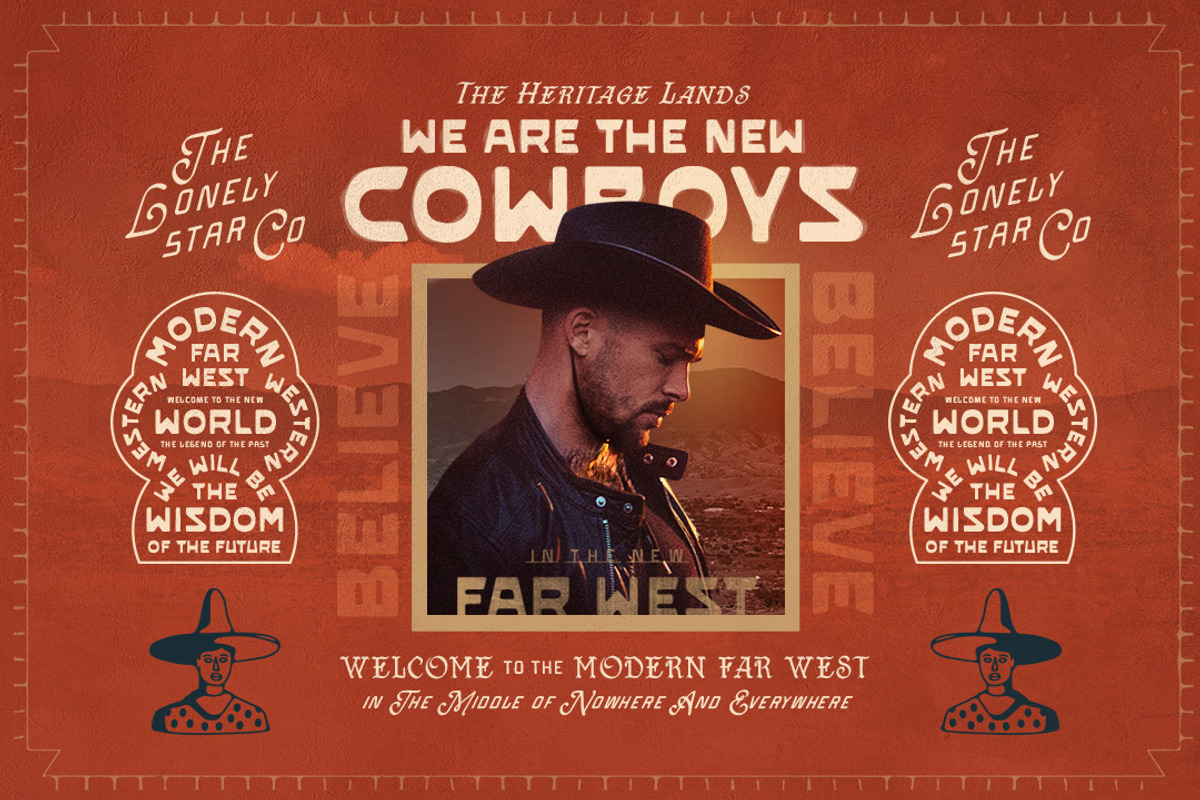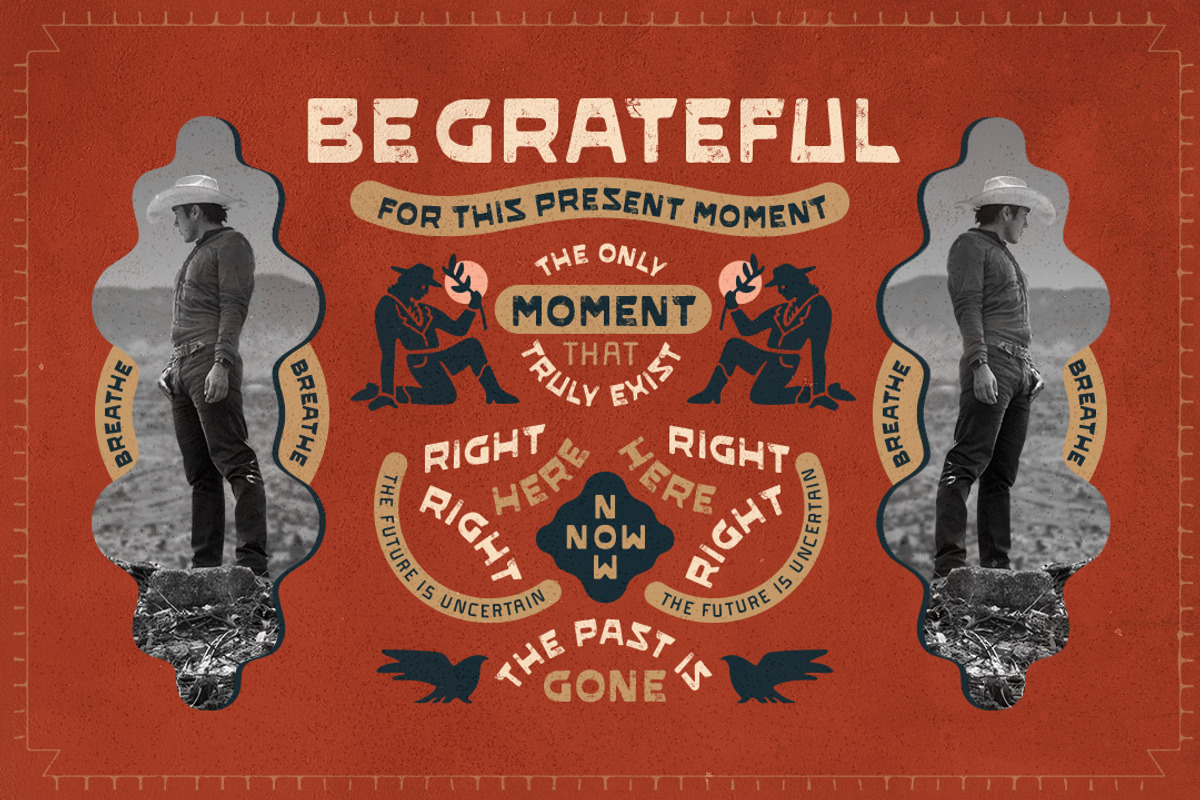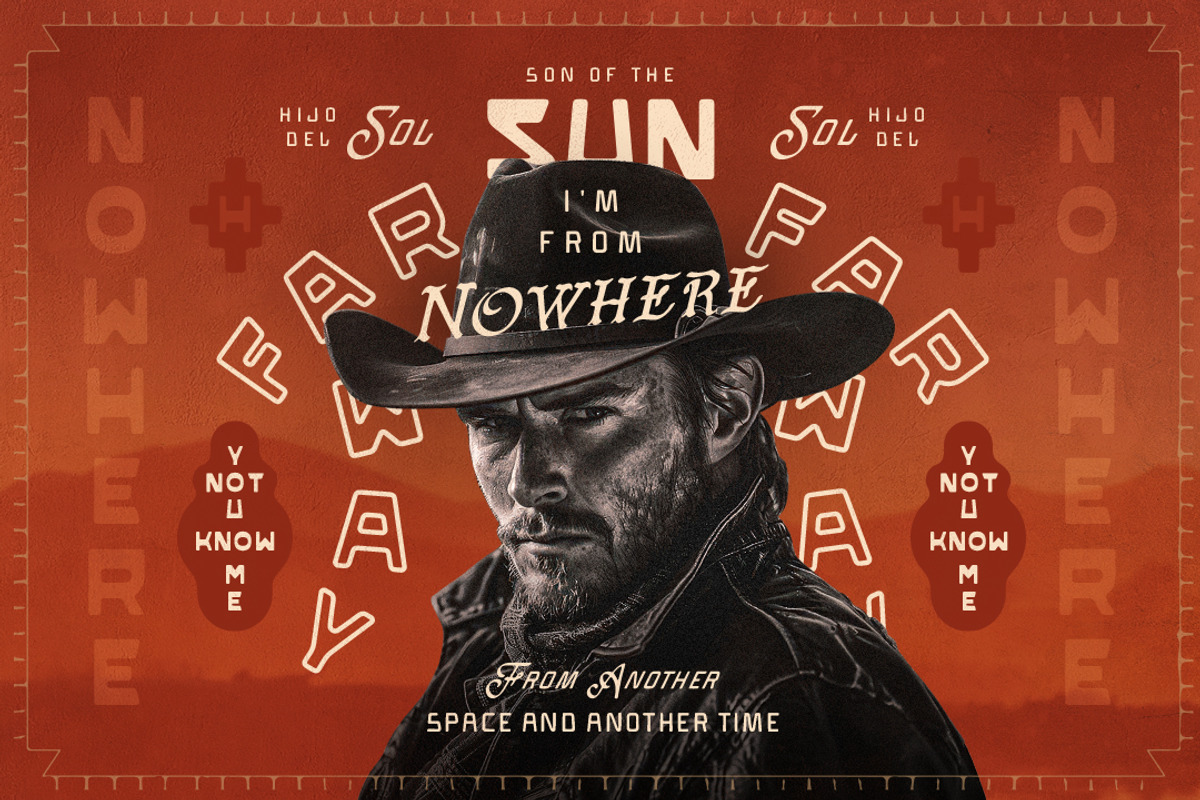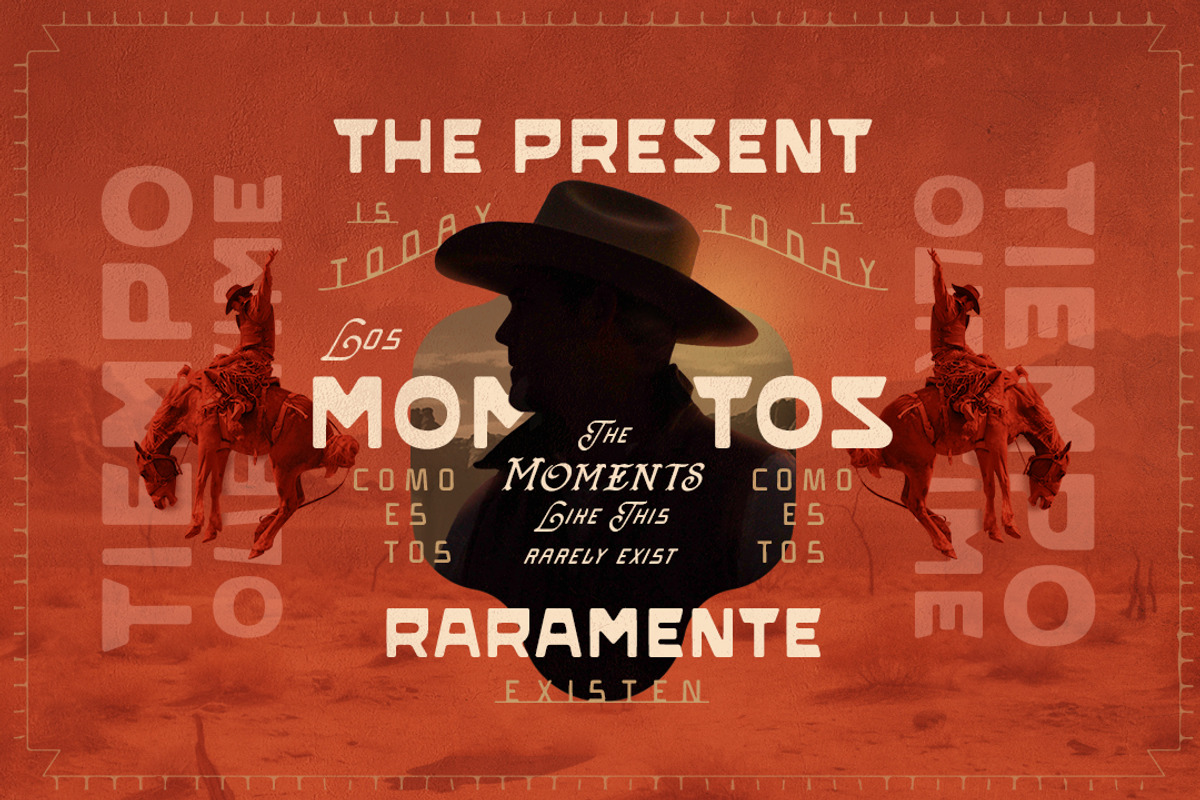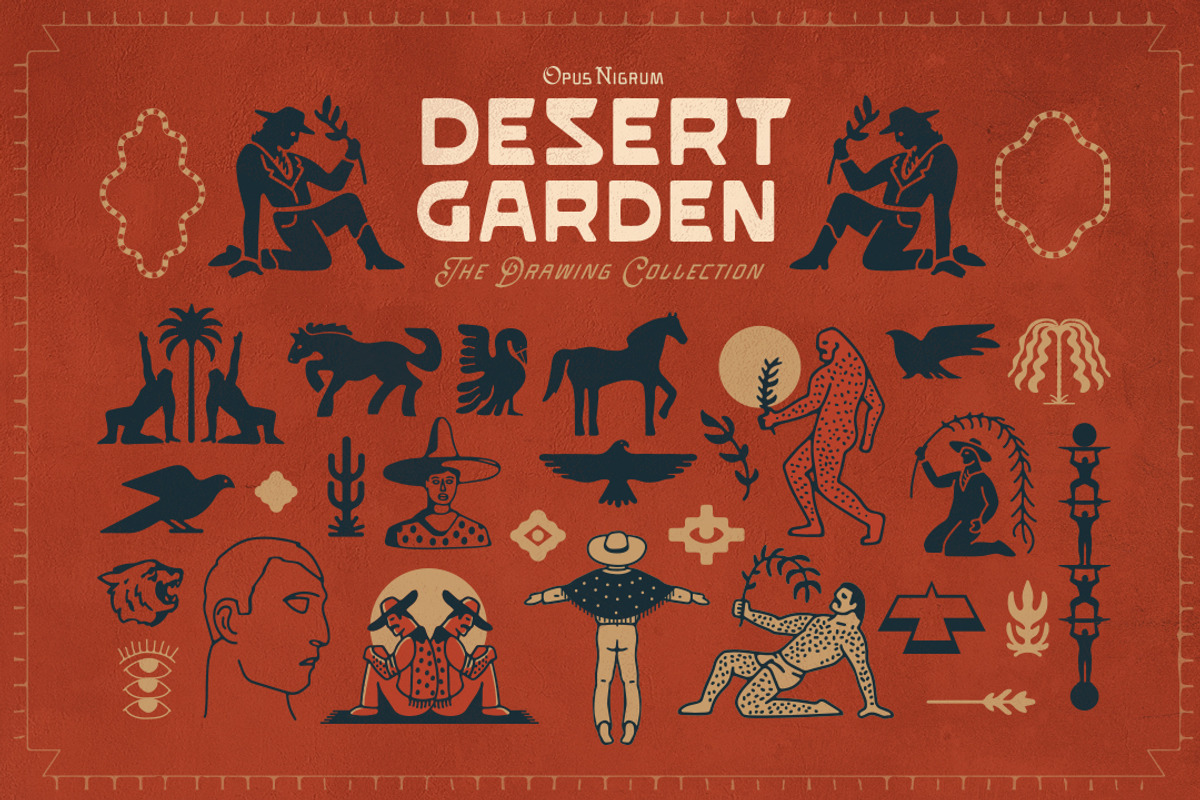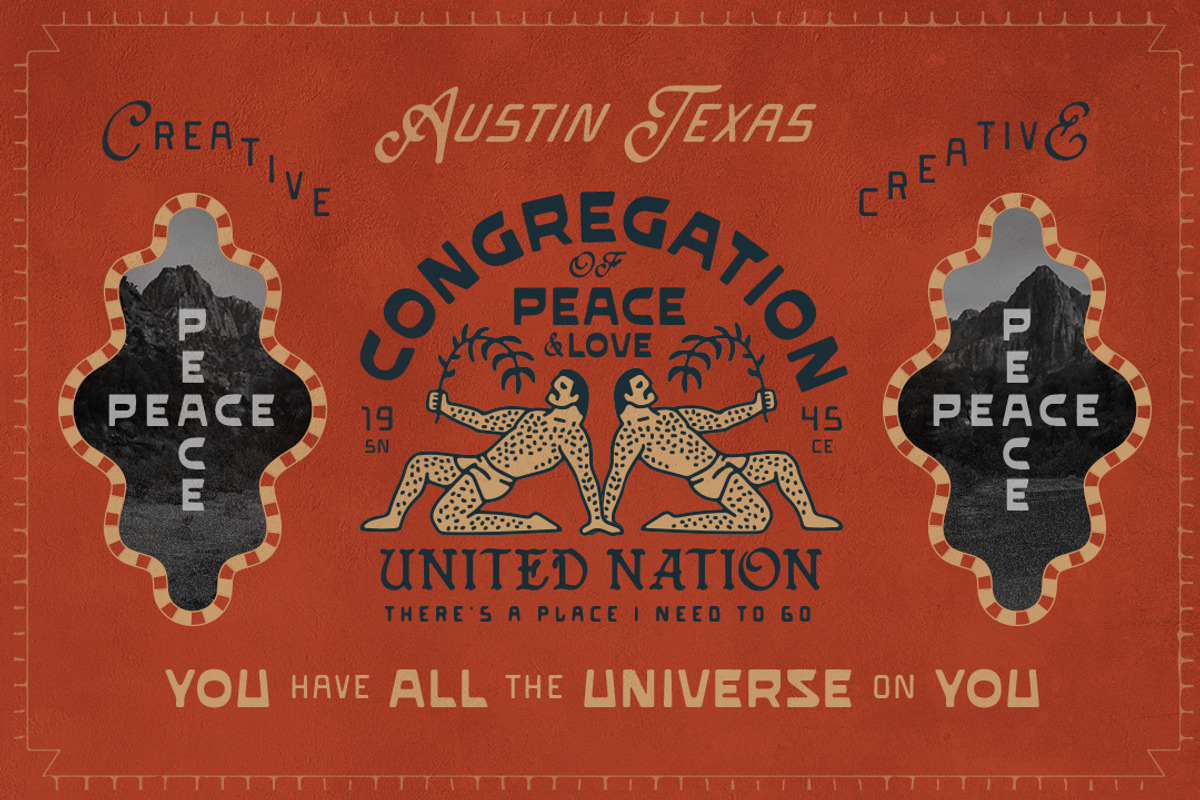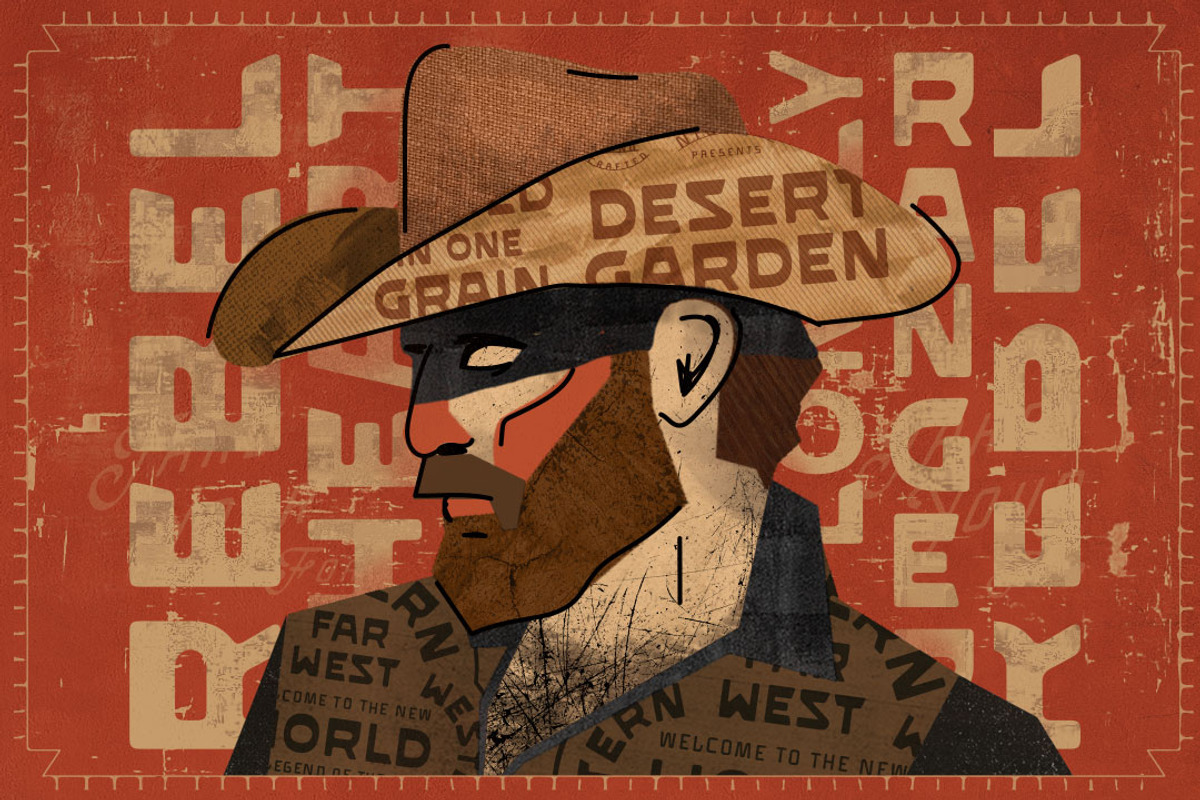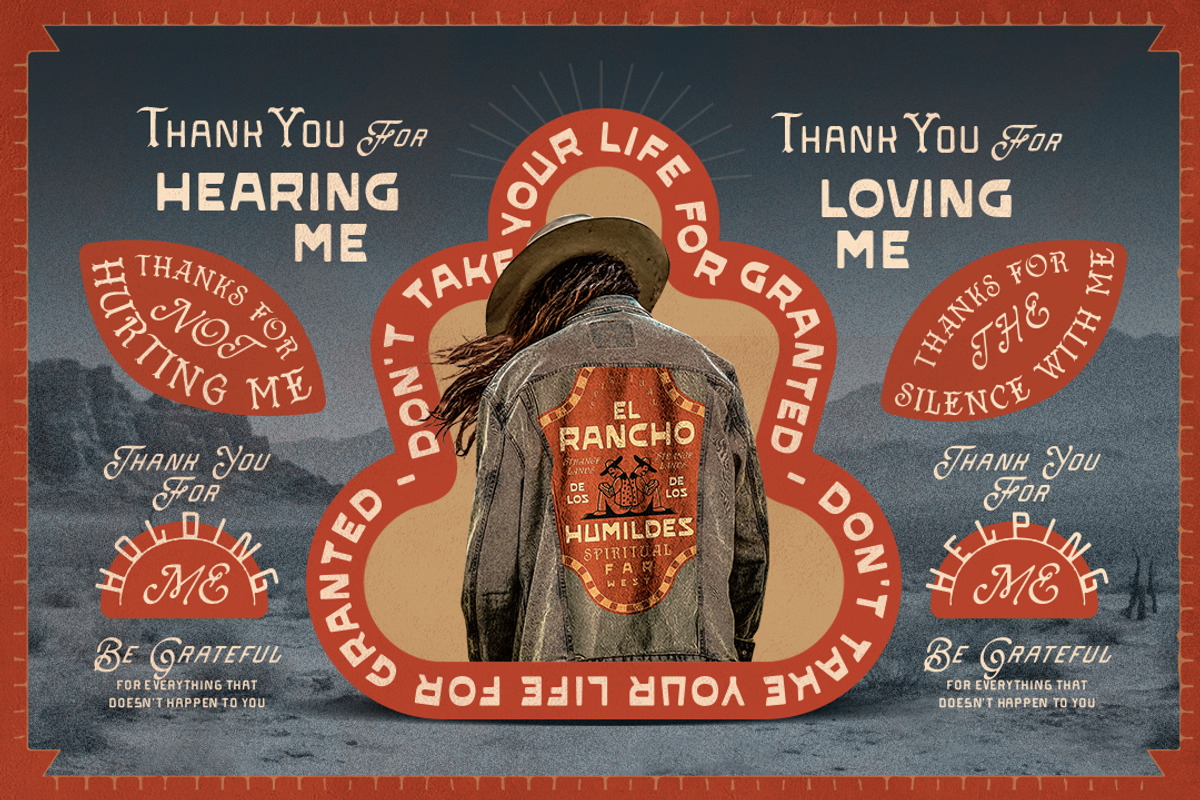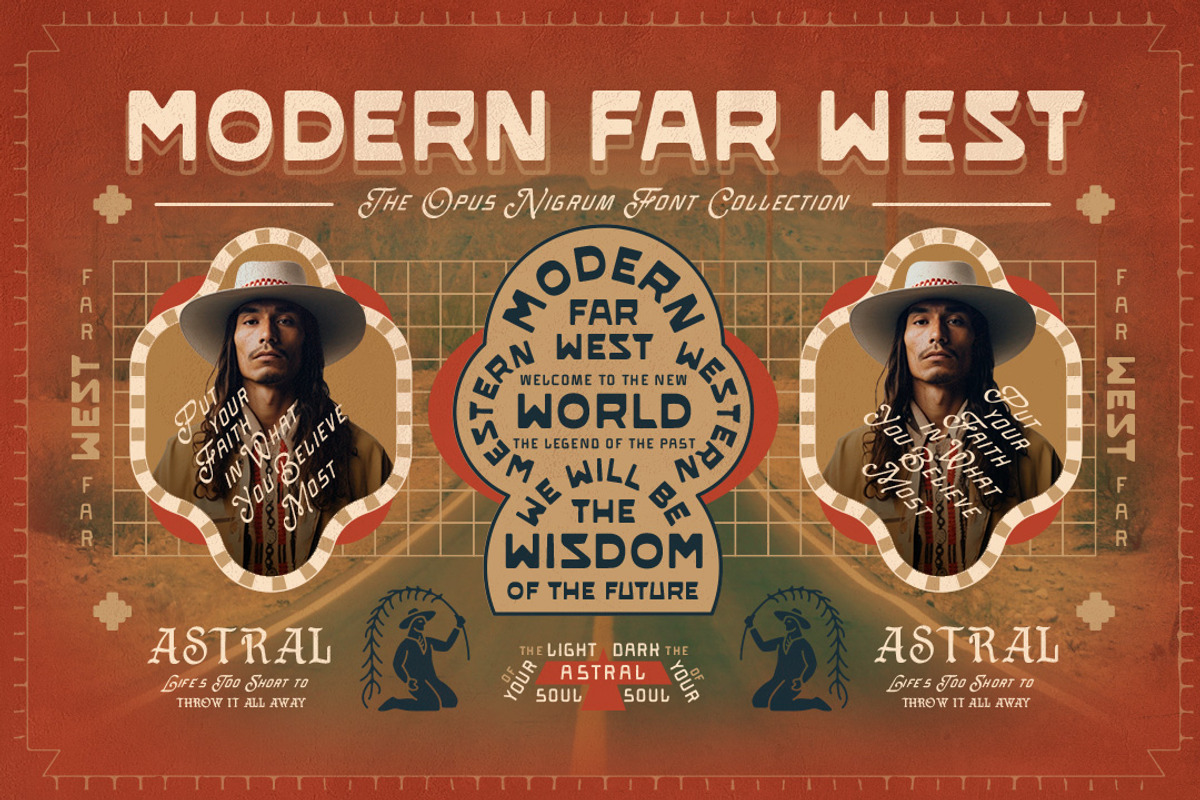
Desert Garden Font Collection
Desert Garden is a new collection of handmade fonts. The new modern far west inspired by the old west and the mix of Spanish and native culture. Desert Garden takes as reference the art of the American desert, the Mexican border and the new cowboys. Inherited values mixed with new spiritual and brotherhood values. In the style of Mezcal, whiskey labels and old store signs. Discover the beauty of this garden that grows strong in the middle of the desert.